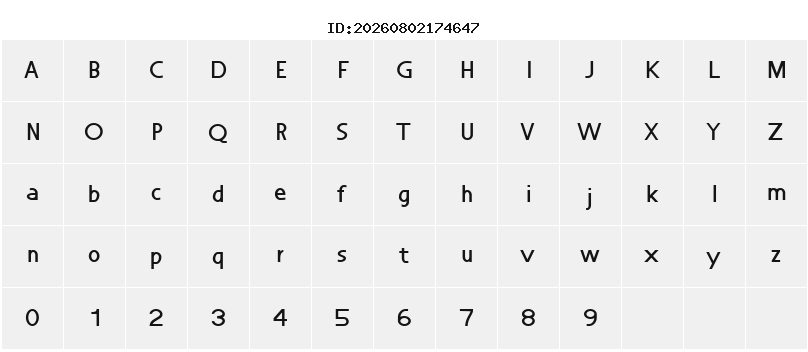
Nu World Preview
• Font Name: Nu World
About Nu World.ttf
Nu World.ttf is a modern, elegant sans-serif font designed for ultimate readability and visual harmony. Perfect for branding, headlines, web design, and print materials.